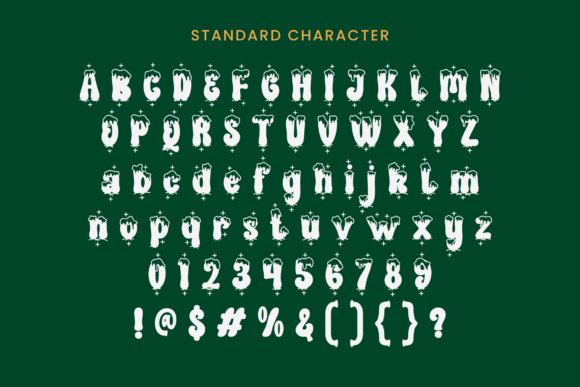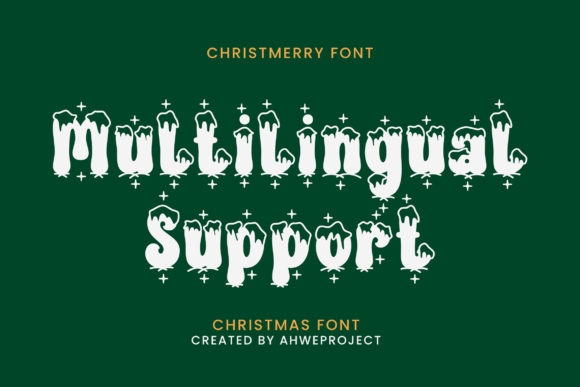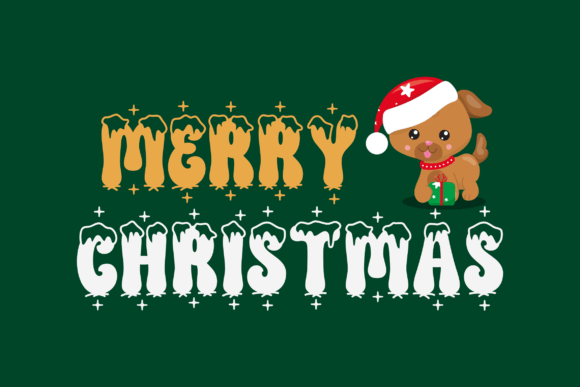
Introduction to Christmerry Font
Christmerry is a display font in a Christmas theme, perfect for sleigh rides and caroling.
It’s very suitable for Christmas cards, wedding invitations, branding, stationery, blog design, custom art, custom stamps, custom embossers, or any design purpose .
Key Features of Christmerry Font